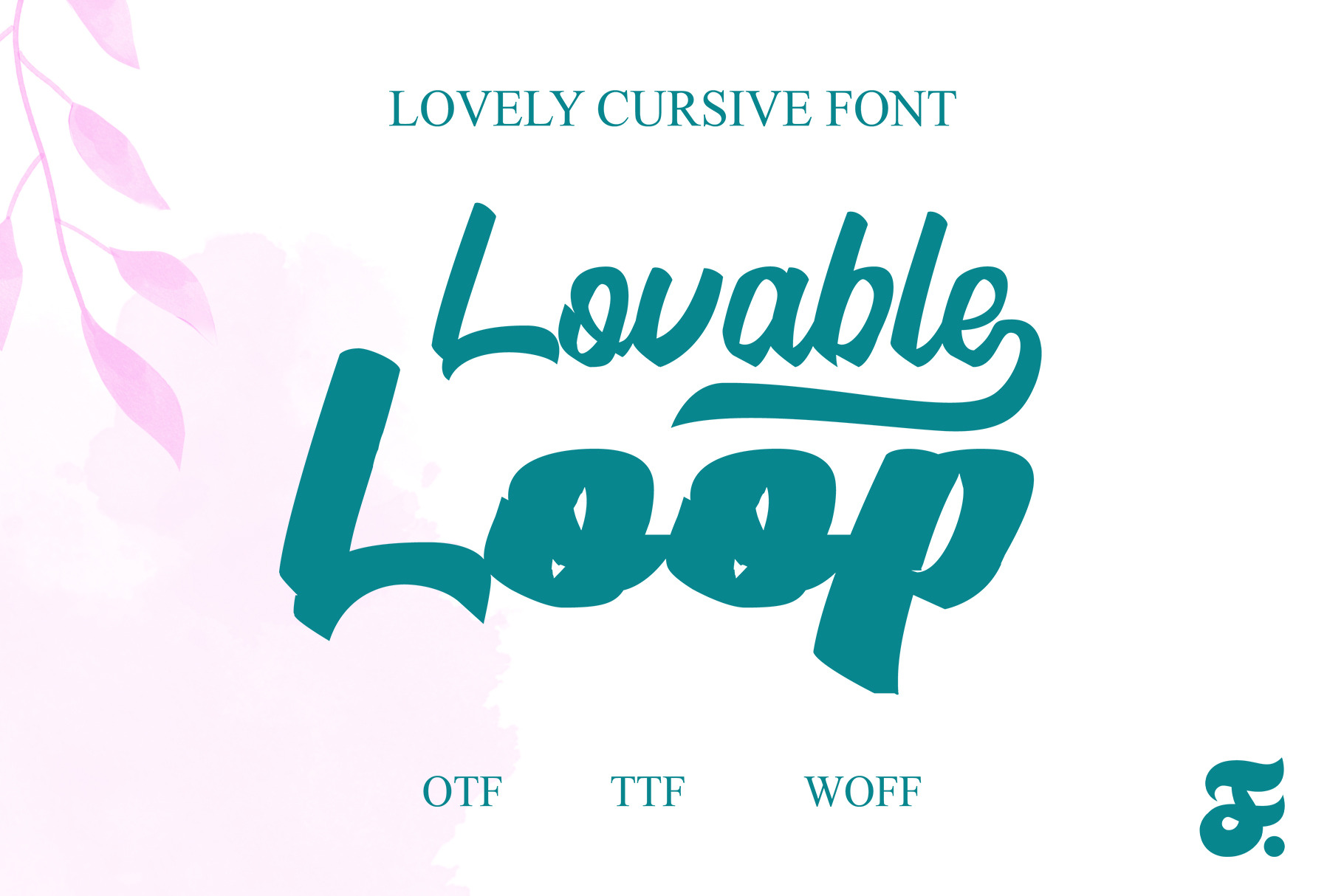
Lovable Loop Brush Font
Lovable Loop Brush Font is a delightful and whimsical typeface that brings a playful touch to any design project. With its charming loops and brushstroke-inspired strokes, this font exudes a sense of warmth and friendliness. The characters are crafted with a careful balance between simplicity and character, making each letter a unique piece of art. Whether used for headlines, invitations, or branding, the Lovable Loop Brush Font injects a sense of personality and charm into every text.
The font's distinctive loops and brush-like strokes give it a handmade and organic feel, adding a touch of authenticity to any creative endeavor. Each letter seamlessly connects to the next, creating a sense of continuity and flow that is both visually appealing and easy to read. Lovable Loop Brush Font is versatile, lending itself well to a variety of design applications, from casual and lighthearted projects to more sophisticated and elegant designs. Its adaptability makes it a valuable asset for designers seeking a font that can convey a sense of approachability and creativity.
Lovable Loop Brush Font is a testament to the beauty of handcrafted typography, offering a refreshing departure from more traditional fonts. Its endearing qualities make it an excellent choice for projects that aim to evoke a sense of joy, friendliness, and individuality. Whether used in digital or print media, this font adds a touch of lovable personality to any design, making it a favorite among designers looking to infuse their creations with a dash of charm.